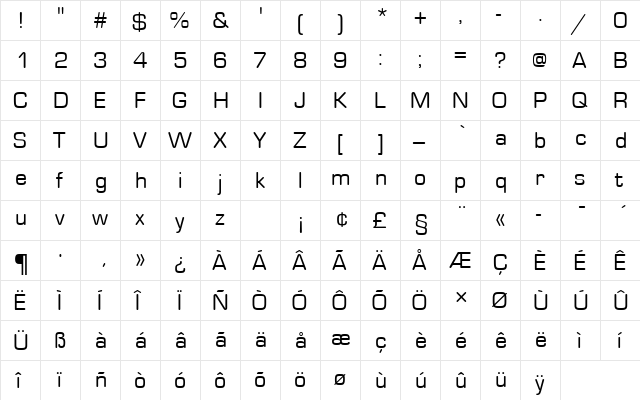
EurostileTRegRo1 Regular
Design Context for EurostileTRegRo1 Typeface
EurostileTRegRo1 offers clean, dependable letterforms without strong stylistic allegiance, making it a practical choice for designers who need flexibility.